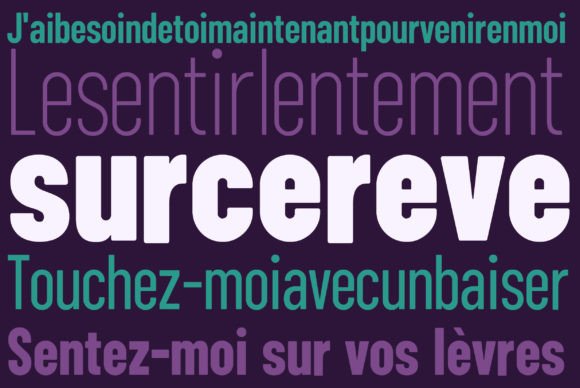
Floogn Font Font – Free Download
Introduction to Floogn Font Font
Fonts play a crucial role in design, and the Floogn Font font is a typeface that brings both character and versatility to any project. Whether you’re working on a branding project, a website, or a print design, the Floogn Font font offers a unique style that can elevate your work.
The new ZT Floogn font family, designed by Khaiuns and published by Zelowtype, is a modern, dense sans serif style with a rounded look.
This font is characterized by its balanced proportions, uniform stroke width, and subtle variations in typeforms, giving it a distinctive look at all weights Due to the narrow shape of the ZT Floogn typeface, it is best applied to headlines and poster-sized typography, resulting in designs with a fresh, friendly personality.
Key Features of Floogn Font Font
Why Choose Floogn Font Font?
The Floogn Font font is more than just a typeface – it’s a design tool that helps you communicate your message with style and clarity. Its unique character set and versatile design make it suitable for a wide range of applications, from elegant invitations to bold headlines.
With its carefully crafted letterforms and balanced proportions, the Floogn Font font ensures readability and visual appeal across all mediums.
What makes Floogn Font font special?
The Floogn Font font stands out with its unique design, exceptional readability, and versatility across various design applications.